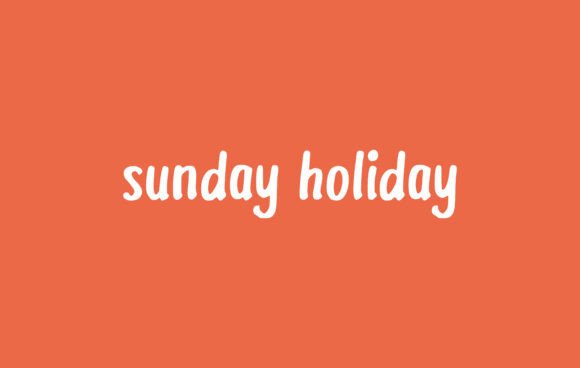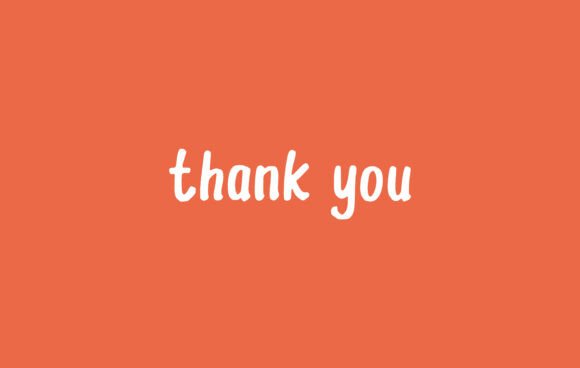
Introduction to Siena Font
Have you ever stumbled upon a font that makes you feel like you’ve stumbled upon a hidden treasure trove of inspiration? For designers, that moment is priceless. It’s the moment when the perfect font clicks into place, elevating your creative project to new heights. For me, that moment came when I discovered the Siena Font – an authentic handwritten font with a romantic touch that’s as captivating as it is legible.
Whether you’re working on a magazine headline, social media campaign, or wedding invitation, the Siena Font is the perfect design resource to bring your vision to life. With its high-quality, transparent background, this font is a free download that’s waiting to be unleashed on your next creative project. As a designer, you know how valuable it is to have a reliable, go-to font that can make or break the aesthetic of your work.
Key Features of Siena Font
- High-quality font design with a transparent background, ideal for creative projects that require a clean and minimalist aesthetic.
- Comes in a single font weight, making it a versatile design resource for a wide range of creative projects.
- Designed to be scalable, suitable for use in various sizes and resolutions, from small text to large headings.
- Perfect for use in digital design, including web design, graphic design, and UI/UX design, where a clean and simple font is desired.
Honest Review: Siena Font
I recently had the opportunity to work with the Siena Font for a creative project, and I must say it was a great experience. This high quality font has a unique and elegant design that adds a touch of sophistication to any project.
One of the things that I really appreciate about Siena Font is its transparent background, which makes it easy to use on any background color. This feature is especially useful for designers who want to create a cohesive and polished look for their design resources.
- High quality design that adds a touch of sophistication to any project
- Transparent background makes it easy to use on any background color
- May not be suitable for very small text sizes due to its elegant design
- Not as versatile as some other fonts, but still great for specific creative projects
Overall, I’m really impressed with the Siena Font. It’s a great design resource that can add a touch of elegance to any project. While it may have some limitations, it’s definitely worth checking out for any designer looking for a high quality font.
Siena Font
The Siena Font is a high-quality, free download design resource perfect for creative projects. With its unique and elegant style, this font is ideal for any design project that requires a touch of sophistication.
Tips for Getting the Most Out of Siena Font
For the best results, use the Siena Font in conjunction with high-quality images and design elements. Experiment with different font sizes and colors to create a unique and eye-catching design. Don’t be afraid to mix and match different fonts to add depth and interest to your project.
The Siena Font is ideal for any creative project, including wedding invitations, business cards, and brochures. Its elegant style makes it perfect for luxury brands and high-end designs. Additionally, this font can be used in a variety of contexts, from fashion to food design.